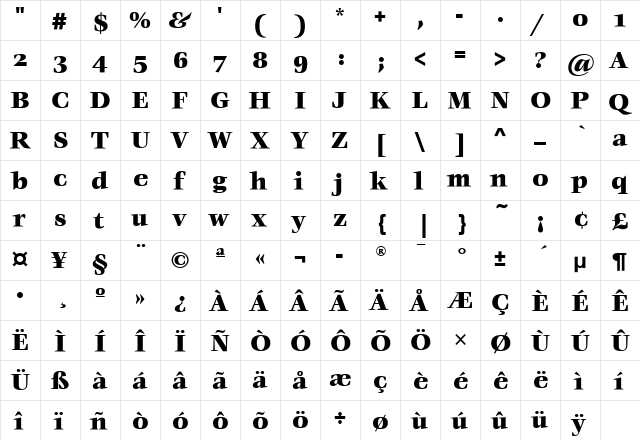
VeljovicMdOSITC Black
Design Context for VeljovicMdOSITC Typeface
VeljovicMdOSITC offers clean, dependable letterforms without strong stylistic allegiance, making it a practical choice for designers who need flexibility.